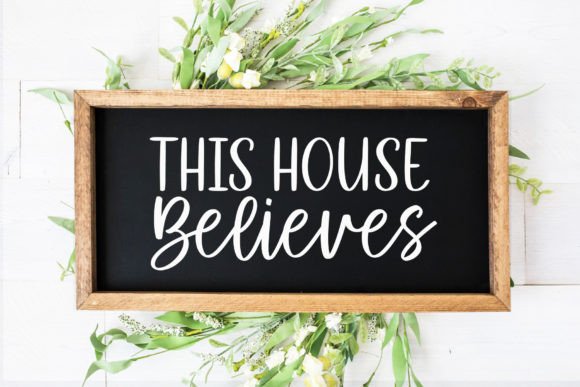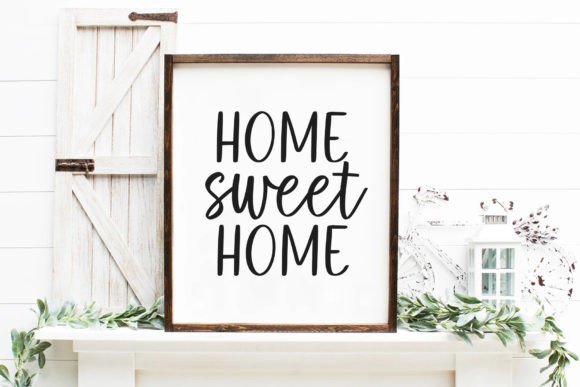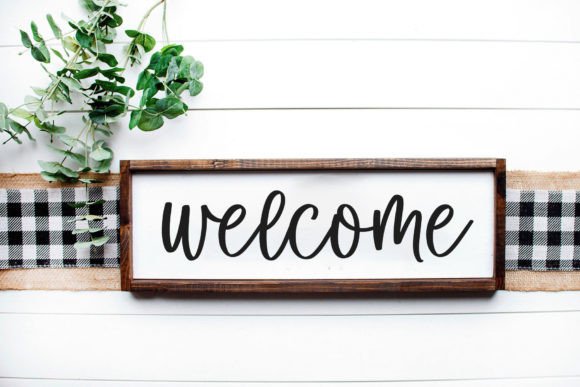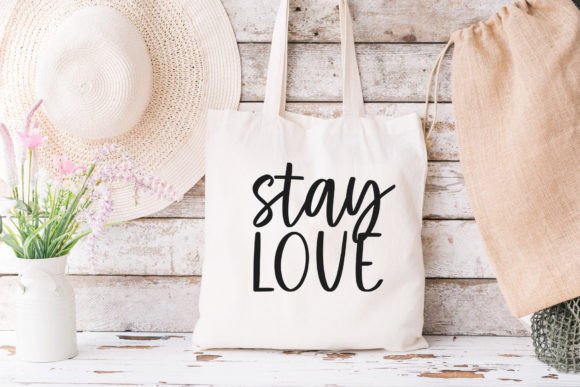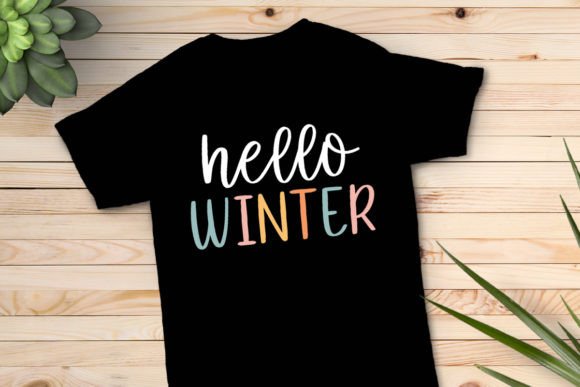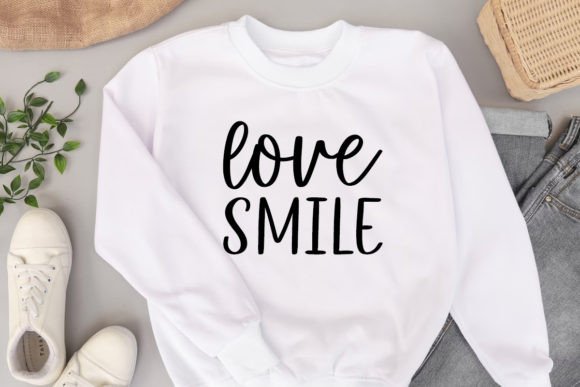
Camila Ashton Font: Elevate Your Designs with Modern Elegance
In the world of typography, a font can make or break a design. For designers and crafters, finding the perfect font that embodies both style and versatility is a treasure. This is where the Camila Ashton Font comes into play, a modern, stylish, and flowing handwritten font duo that is taking the design world by storm.
What is Camila Ashton Font?
Camila Ashton is not just any font; it’s a duo that includes both a script and a display font, offering the best of both worlds. This modern and stylish handwritten font is characterized by its beautiful and well-balanced characters, making it an incredibly versatile choice for a wide range of design projects.
Key Features of Camila Ashton Font
- Modern and Stylish: Camila Ashton boasts a contemporary look that will make your designs stand out. Its stylish appearance is perfect for those looking to add a touch of elegance and sophistication.
- Flowing Handwritten Style: The font’s flowing and handwritten nature gives it a personal and unique feel, making it ideal for projects that require a bit of personality.
- Well-Balanced Characters: One of the standout features of Camila Ashton is its well-balanced characters. This ensures that the font is easy to read and aesthetically pleasing, whether it’s used for a logo, branding, or a quote.
- Script and Display Font Duo: The inclusion of both script and display fonts in the Camila Ashton duo provides designers with flexibility. The script font can be used for longer texts or for adding a personal touch, while the display font is perfect for headlines, logos, and other attention-grabbing elements.
Perfect for a Wide Pool of Designs
The versatility of Camila Ashton Font makes it suitable for a wide range of design projects. Here are some of the areas where it truly shines:
- Eye-Catching Logos: Create stunning logos that capture the essence of your brand. The unique and stylish appearance of Camila Ashton ensures that your logo will stand out from the crowd.
- Branding: Consistency in branding is key, and with Camila Ashton, you can ensure that your brand’s visual identity is cohesive and appealing. Use it for your website, business cards, or packaging to create a lasting impression.
- Quotes and Typography Art: For crafters and designers who love working with quotes or creating typography art, Camila Ashton is a dream come true. Its flowing and elegant style brings quotes to life, making them perfect for sharing on social media, blogs, or as art pieces.
Adding Camila Ashton to Your Designs
- Experiment with Pairings: Don’t be afraid to experiment with pairing Camila Ashton with other fonts. The contrast between the flowing script and bold display fonts can create visually stunning combinations.
- Play with Colors: The right color scheme can elevate your design. Camila Ashton looks great in both bold and pastel colors, offering endless possibilities for customization.
- Consider the Context: Always consider where your design will be used. For digital platforms, you might want to opt for a more modern and bold look, while for print materials, a elegant and flowing style might be more suitable.
Camila Ashton Font is a game-changer for designers and crafters looking to add a touch of modern elegance to their projects. With its stylish and flowing handwritten style, well-balanced characters, and versatility, it’s the perfect choice for creating eye-catching logos, branding, quotes, and so much more. Whether you’re working on a personal project or a client’s, Camila Ashton is sure to bring your designs to life.